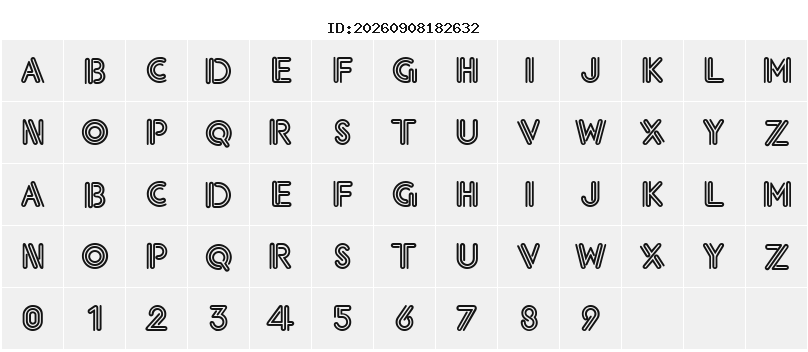
Voltage Preview
• Font Name: Voltage
• Full Font Name: Voltage Normal
About Voltage.ttf
Voltage.ttf is a modern, elegant sans-serif font designed for ultimate readability and visual harmony. Perfect for branding, headlines, web design, and print materials.